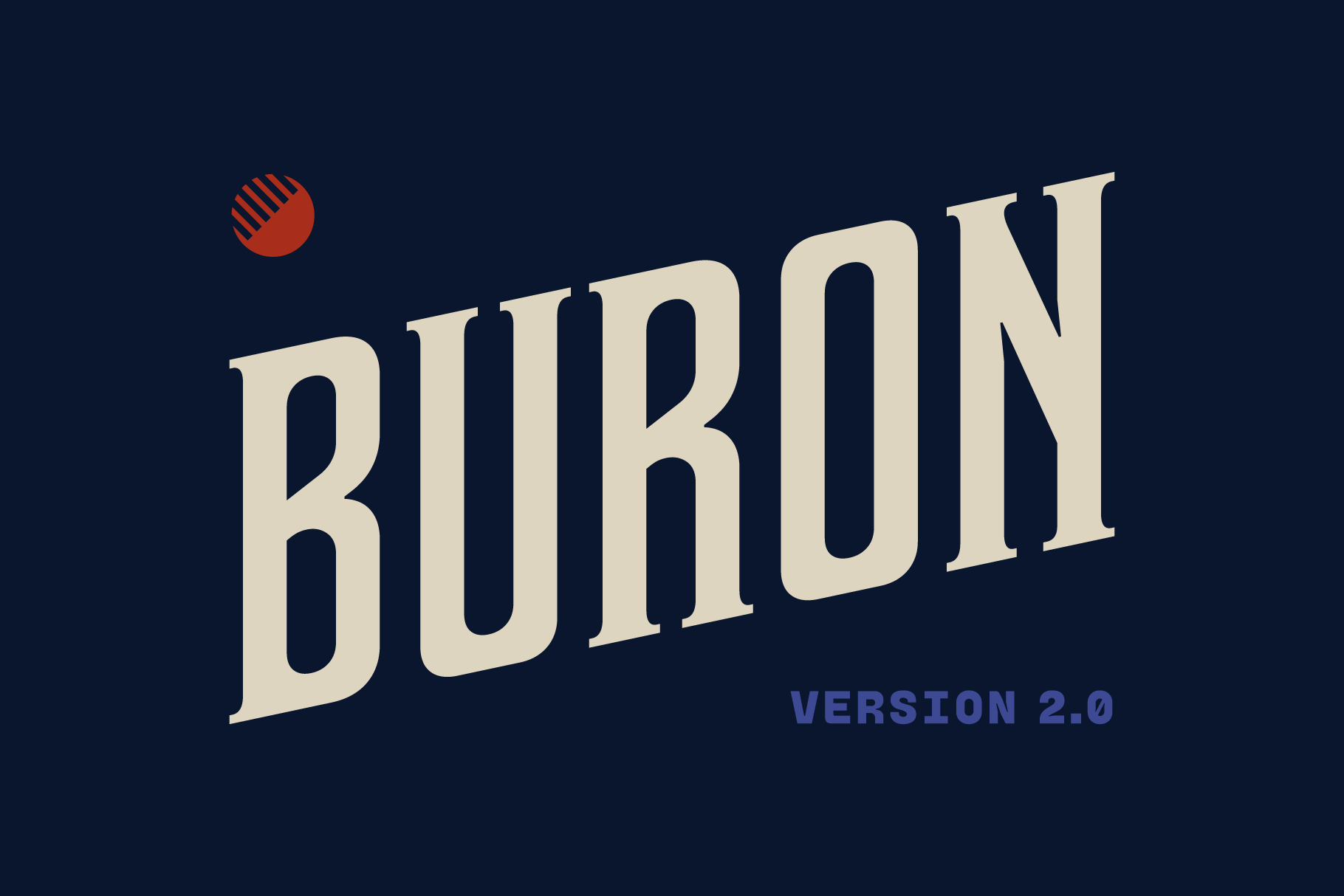
Buron Typeface
Buron is a condensed, boxy serif with vintage vibe. Previously released in 2015 with limited character set, now Buron version 2.0 comes with uppercase, smallcaps, lowercase and many more features such as ligatures and fraction.